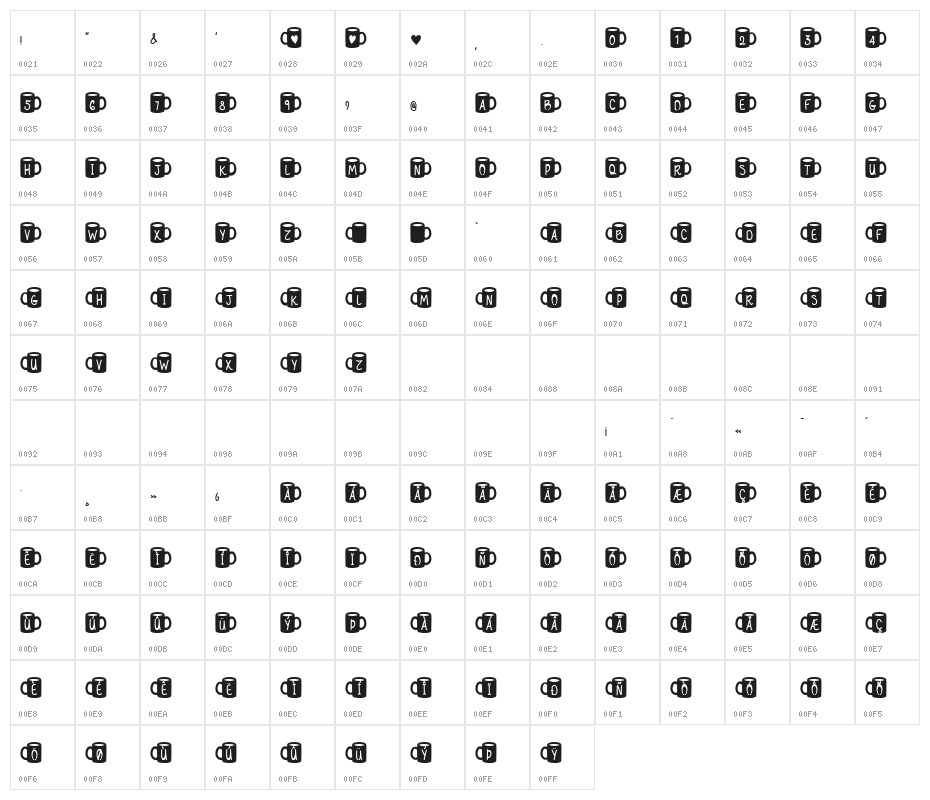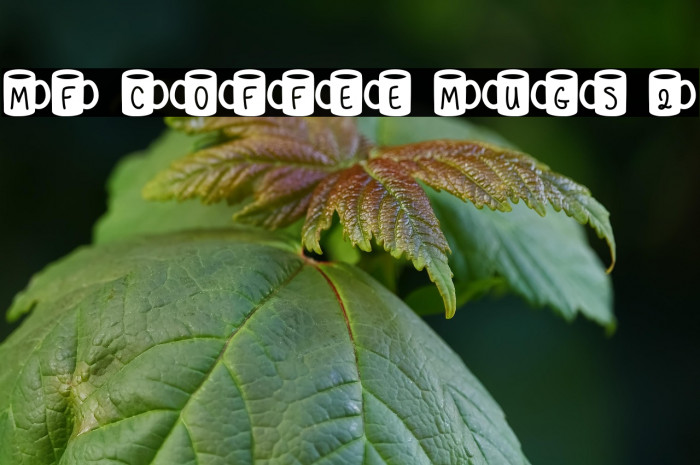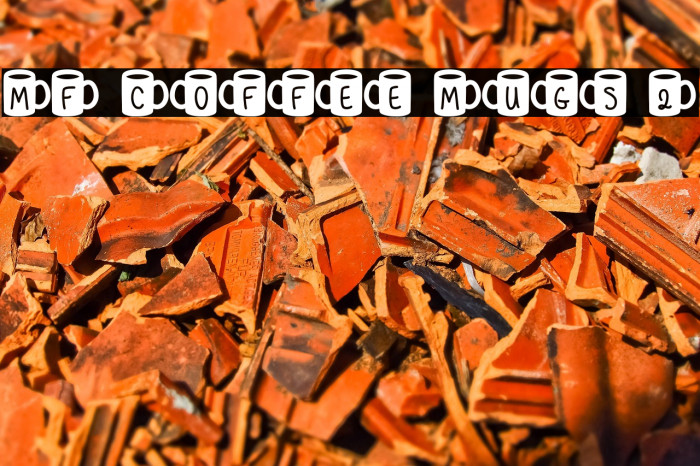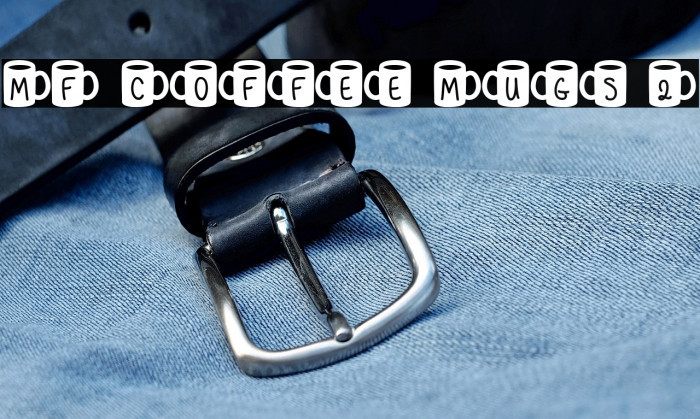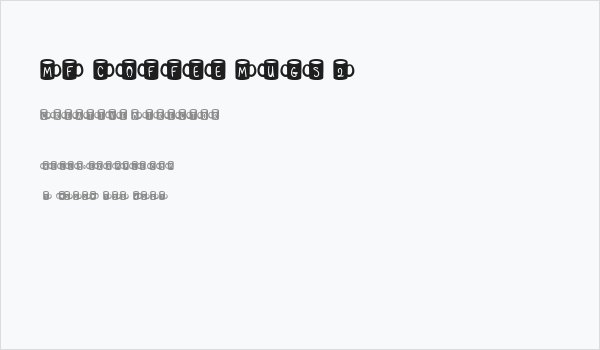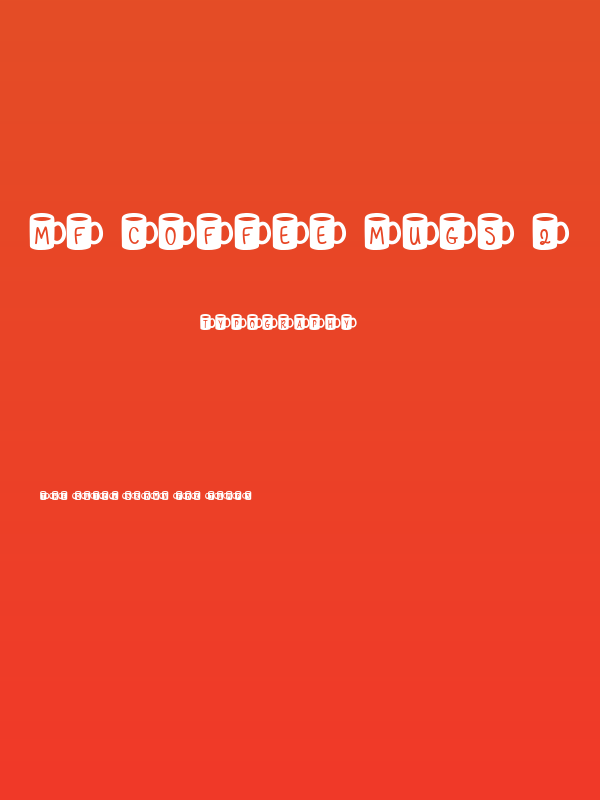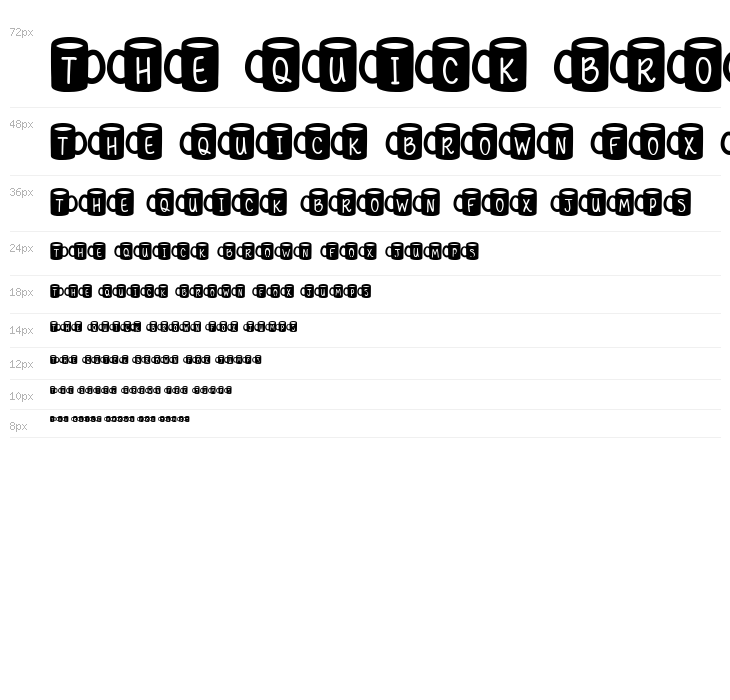
MF Coffee Mugs 2 Font
MF Coffee Mugs 2 Description
This playful and whimsical font features each character enclosed within a coffee mug shape, creating a unique and eye-catching design. The letters are bold and rounded, with a friendly and approachable appearance. The use of coffee mugs as a design element adds a fun and thematic touch, making it ideal for projects related to coffee shops, cafes, or any beverage-themed branding. The font includes both uppercase and lowercase letters, numbers, and a selection of special characters, all maintaining the consistent mug motif. The overall style is decorative and modern, with a touch of humor and creativity.
| Use Case | Logos, Headlines, Themed Invitations |
| Proposed Projects | Ideal for coffee shop branding, cafe menus, beverage packaging, and playful graphic designs. |